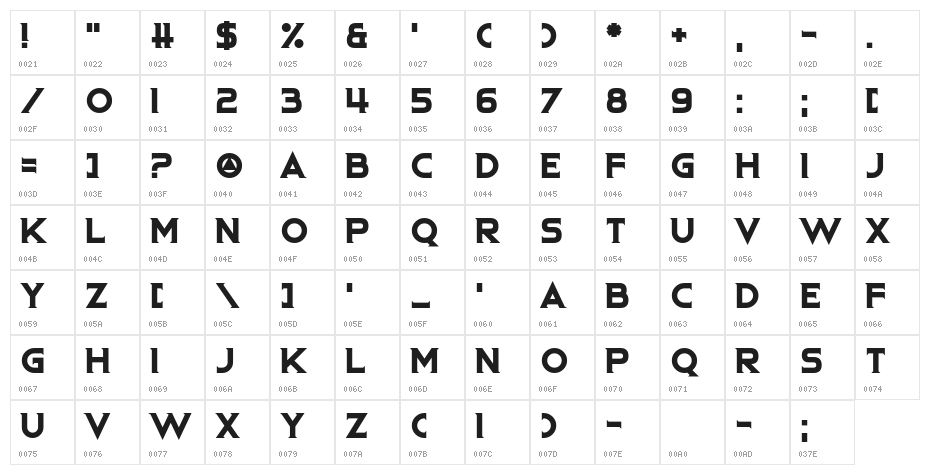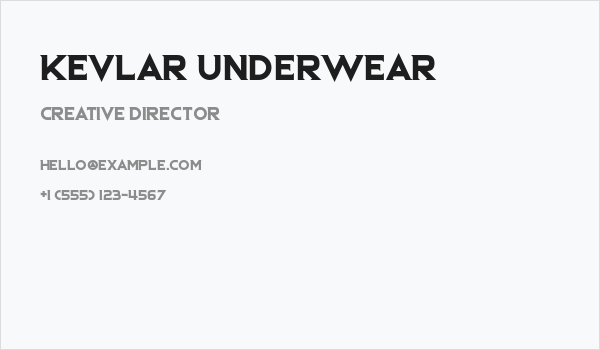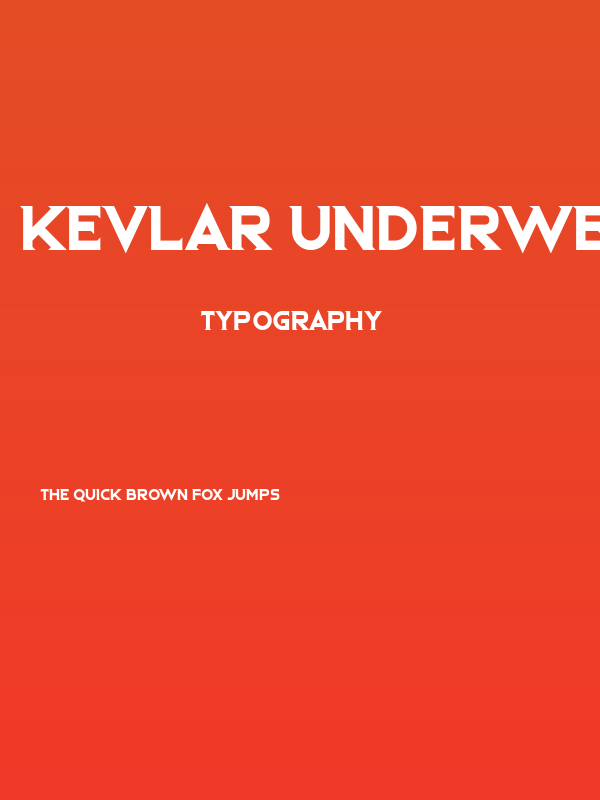
Kevlar Underwear Font
Kevlar Underwear Description
This font features a bold, geometric design with a strong presence. The characters are crafted with sharp angles and clean lines, giving it a modern and assertive look. The uppercase letters are particularly striking, with a uniform height and width that create a cohesive appearance. The numerals are equally bold, maintaining the geometric style with a slight futuristic touch. Special characters are designed to match the overall aesthetic, ensuring consistency across all glyphs. The font's strong visual impact makes it ideal for attention-grabbing headlines and branding projects.